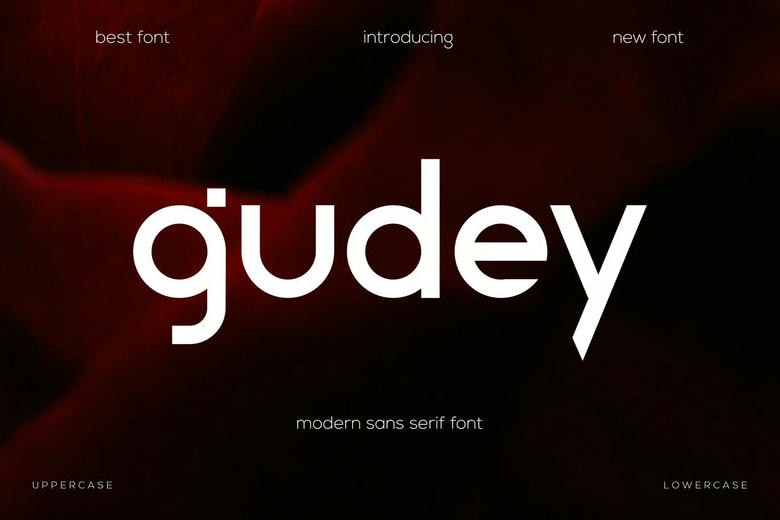
Gudey Font
Gudey Font is a modern sans-serif display font with a clean and authentic style. Its bold, clear letterforms stand out, making it a great choice for headlines, branding, and other contemporary design projects.
Gudey Sans Serif Font